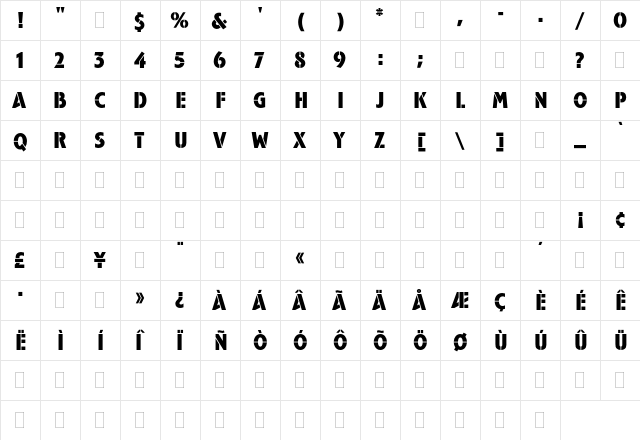
Campaign Beta Plain
Design Context for Campaign Beta Typeface
Campaign Beta is a composed and adaptable typeface that performs quietly and consistently across a wide range of design contexts.